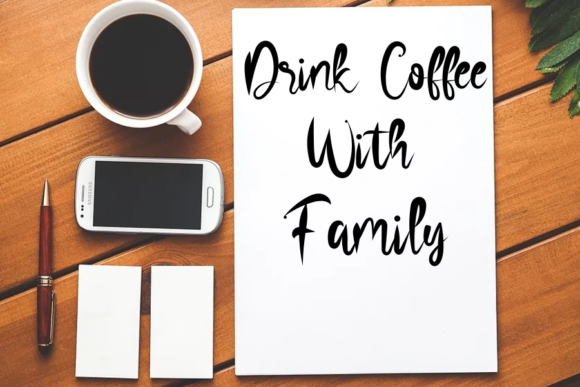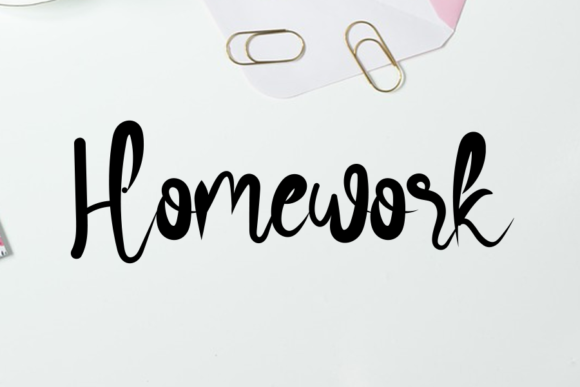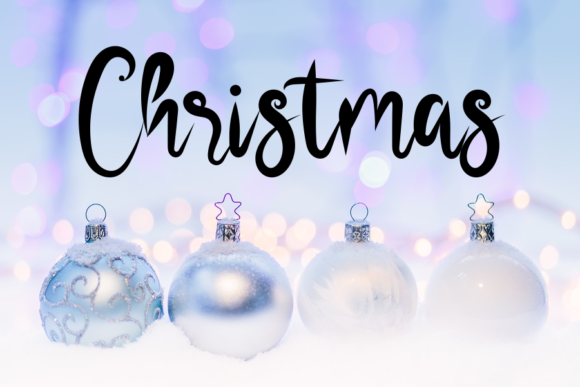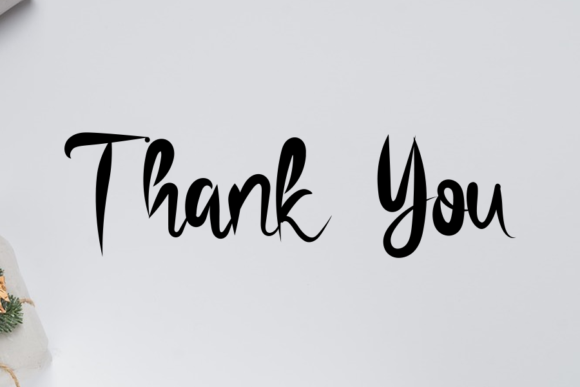
Coffee Break Font: The Perfect Addition to Your Design Arsenal
Are you tired of using the same old fonts in your designs? Look no further than the Coffee Break Font, a chic, modern, and simple lettered handwritten font that’s perfect for a wide variety of projects. With its elegant and approachable vibe, this font has the potential to become your go-to choice for all your design needs.
What is Coffee Break Font?
Coffee Break Font is a beautifully crafted handwritten font that’s designed to add a touch of sophistication and style to your designs. Its modern and simple lettering makes it perfect for use in a variety of projects, from branding and packaging to social media graphics and blog posts.
Key Features of Coffee Break Font
- Chic and Modern Design: Coffee Break Font boasts a sleek and contemporary design that’s sure to make your designs stand out.
- Simple Lettered Handwritten Font: The font’s simple and handwritten style makes it easy to read and versatile enough to use in a variety of contexts.
- Suitable for a Wide Variety of Designs: Whether you’re working on a logo, brochure, or social media graphic, Coffee Break Font is the perfect choice.
Why Choose Coffee Break Font?
So, why should you choose Coffee Break Font for your next design project? Here are just a few reasons:
- Unique and Eye-Catching: Coffee Break Font is a unique and eye-catching font that’s sure to make your designs stand out from the crowd.
- Versatile: This font is versatile enough to use in a variety of contexts, from formal to informal designs.
- Easy to Read: The font’s simple and clear design makes it easy to read, even at small sizes.
- High-Quality: Coffee Break Font is a high-quality font that’s designed to deliver exceptional results.
Coffee Break Font in Action
Coffee Break Font is perfect for a wide variety of design projects, including:
- Branding and Packaging: Use Coffee Break Font to create eye-catching logos, labels, and packaging that stands out.
- Social Media Graphics: Use this font to create engaging social media graphics that grab attention.
- Blog Posts: Use Coffee Break Font to add a touch of style to your blog posts and articles.
- Invitations and Cards: Use this font to create beautiful invitations and cards that make a lasting impression.